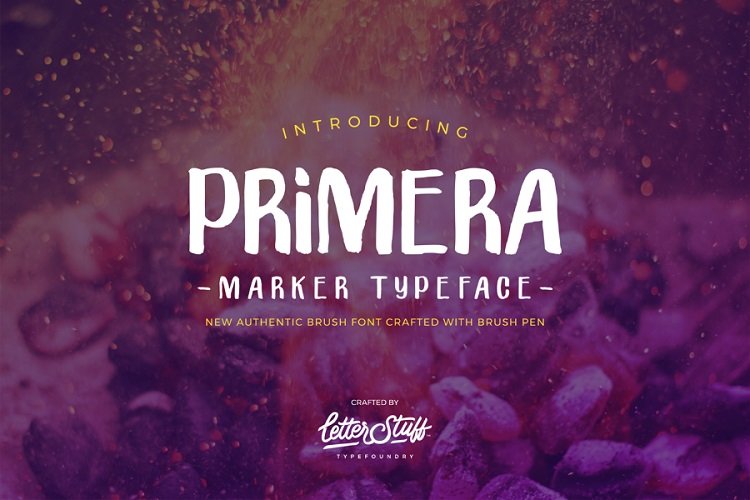
Primera Typeface
PRIMERA Marker Typeface New authentic brush font crafted with brush pen by LetterStuff™ Typefoundry, with authentic and modern style This font functions most strongly as a display or headline font. suitable for logo, logotype, branding,wedding, fashion, label, book cover, t-shirt, instagram post, and other
PRIMERA is a mini font, it includes uppercase, lowercase, numbers, and basic english symbols. Feel free to give it a test run below!